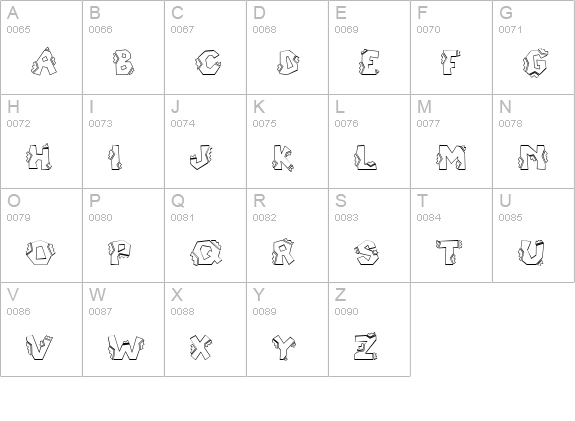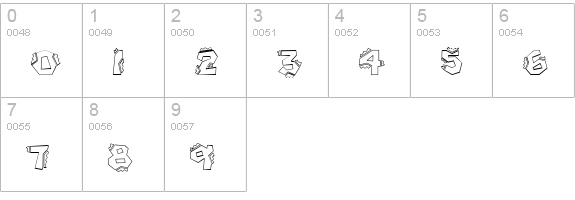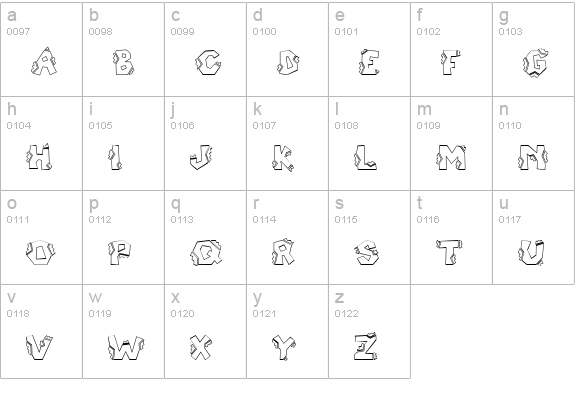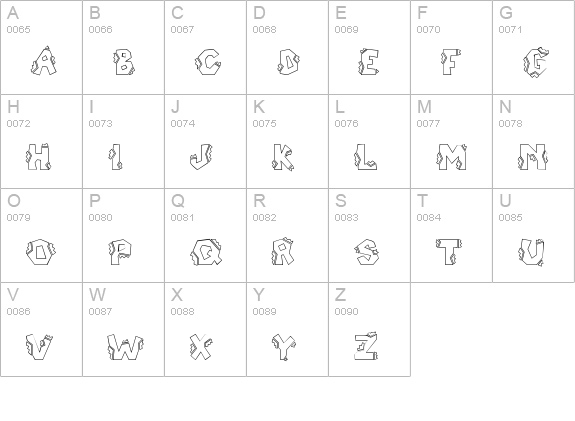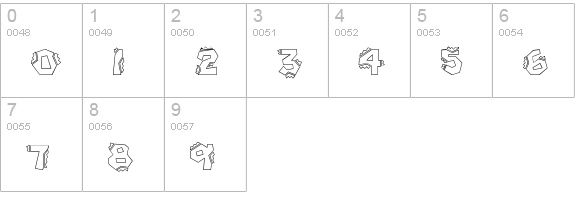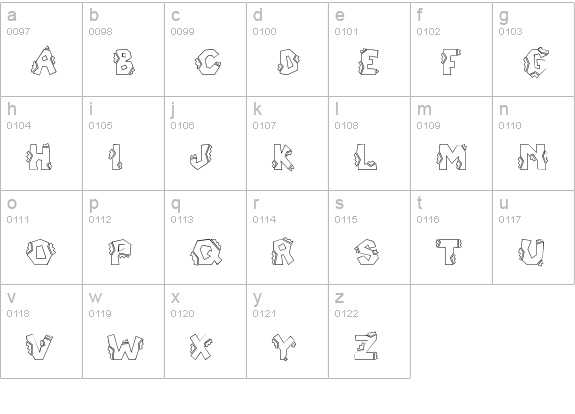
CK Spiky Block Font Details
Introducing CK Spiky Block font, a modern and edgy typeface that adds a bold and dynamic touch to any design project. Inspired by sharp geometric shapes, this font features strong lines and angular edges, making it perfect for creating eye-catching headlines, logos, and branding materials. The CK Spiky Block font is versatile and can be used in a variety of design applications, from posters to social media graphics. The best part? CK Spiky Block font is available for free download at FontsMarket.com. Whether you're a designer looking to add some edge to your projects or a creative looking for a unique font for your next endeavor, CK Spiky Block font has got you covered. Download it today and unleash your creativity with this striking and modern typeface.